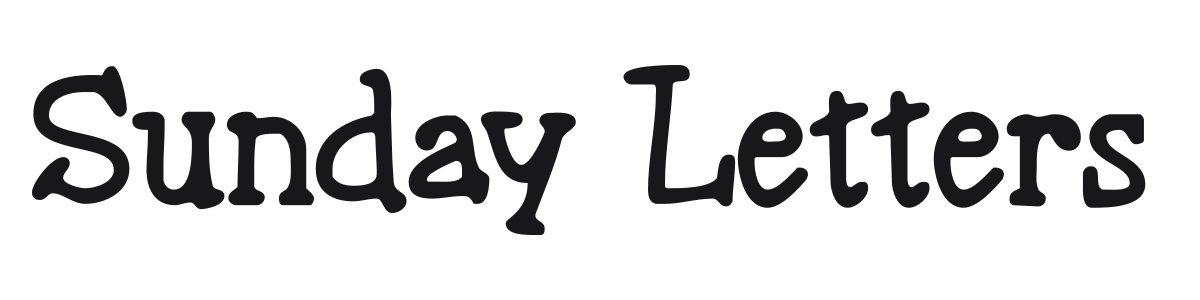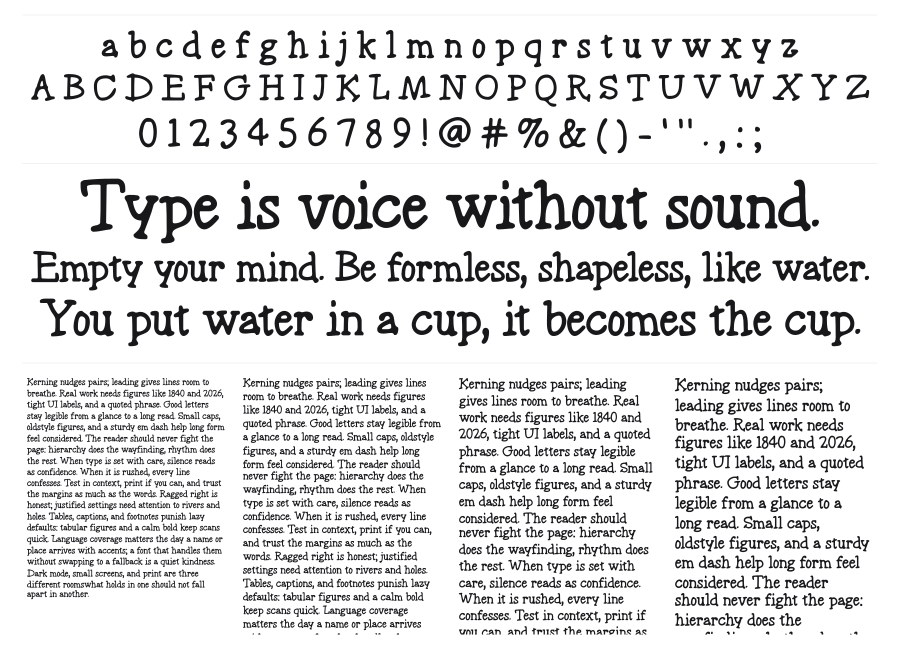
Sunday Letters
Sunday Letters is a bold, chunky slab serif that blends typewriter structure with rounded, hand-stamped warmth. The low stroke contrast and slightly irregular weight distribution give it an approachable, artisan quality that sits somewhere between vintage press type and modern handcraft. It draws attention at large sizes without taking itself too seriously.